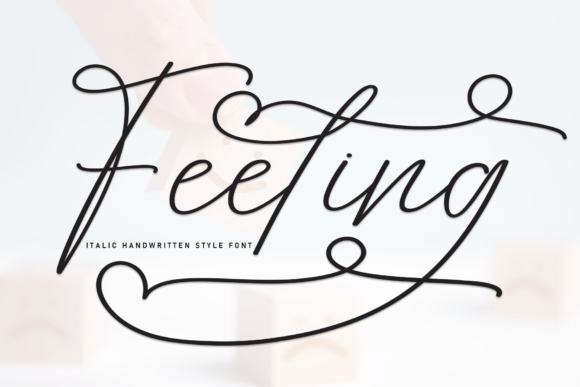
Journey into the world of Feeling Font, a script font family that exudes romance and sweetness. Each character dances along the baseline, leaving a trail of elegance and charm. Crafted by the talented andikastudio, Feeling Font has captivated the hearts of designers and typographers alike, earning its place among the Best Fonts for Web Design in 2014.
Embrace the allure of Feeling Font and let your designs bloom with a touch of elegance. Its casual yet sophisticated nature makes it the perfect choice for a wide range of projects. Bring your creative visions to life with Feeling Font, whether you're crafting wedding invitations, branding materials, or adding a touch of personality to your website.
With Feeling Font, you'll unlock a world of creative possibilities. Its versatility knows no bounds, allowing you to seamlessly blend it with other fonts or design elements. Let your imagination soar as you explore the endless opportunities that await you with Feeling Font.
Don't settle for ordinary fonts that fade into the background. Dare to stand out with Feeling Font. Let its beauty and charm captivate your audience and leave a lasting impression. Elevate your designs to new heights and create something truly remarkable with Feeling Font.